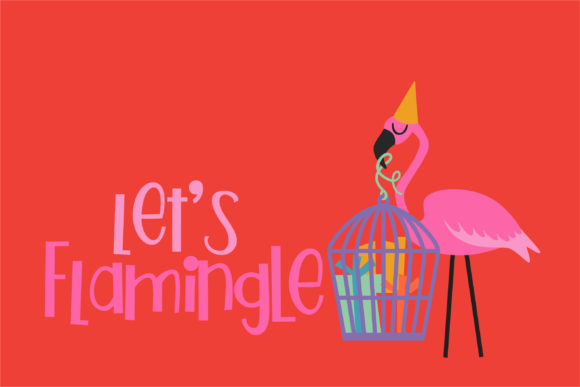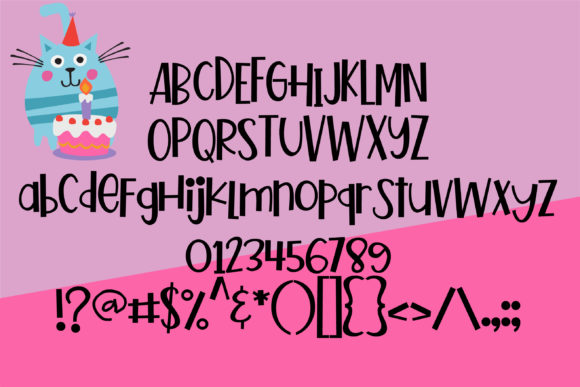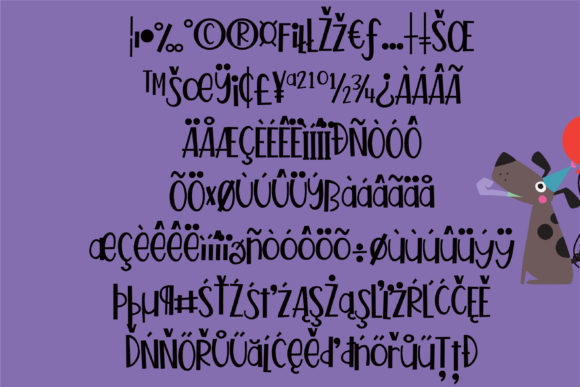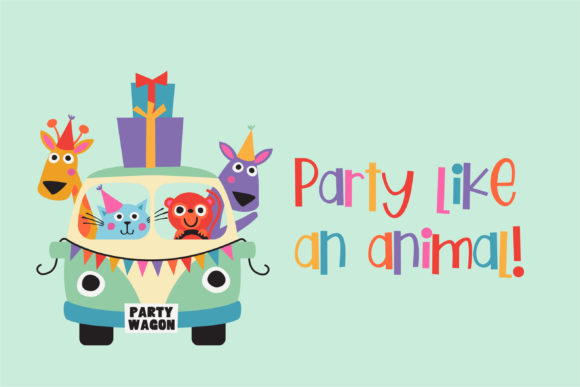
The Joy of High Jinks Font: A Whimsical Design Companion
I still remember the design project that led me to discover the High Jinks Font. I was working on a fun children’s book, and my client requested a font that was playful, energetic, and engaging. As I scoured the internet for the perfect font, I stumbled upon High Jinks, and it instantly caught my eye. Its bouncy baseline and whimsical feel were exactly what I needed to bring the story to life.
An Honest Review of High Jinks Font
• ✨ The unique, bouncy baseline that adds a playful touch to any design
• ✅ Easy to read, even at smaller font sizes
• 💃 Highly versatile, suitable for a wide range of design projects, from children’s books to posters and social media graphics
• 🎉 OpenType features, including glyphs and stylistic alternates, offer endless creative possibilities
While High Jinks Font is an excellent choice for many design projects, there are a few things to keep in mind:
• 🤔 Some characters may appear a bit narrow, which can affect the overall flow of text
• ⚠️ Not ideal for body text or lengthy content, as its playful nature may be distracting
The Story Behind High Jinks Font
High Jinks Font was designed with playfulness and creativity in mind. Its creator aimed to craft a font that would bring joy and energy to designs, making it perfect for projects that require a whimsical touch. The font’s bouncy baseline and unique character shapes are a testament to its design inspiration.
Q: What type of projects is High Jinks Font best suited for?
A: High Jinks Font is ideal for projects that require a playful, energetic feel, such as children’s books, posters, social media graphics, and titles.
Q: Does High Jinks Font support OpenType features?
A: Yes, High Jinks Font supports OpenType features, including glyphs, stylistic alternates, and ligatures, offering a range of creative possibilities.
Q: Can I use High Jinks Font for body text?
A: While High Jinks Font is easy to read, its playful nature may make it less suitable for lengthy body text. It’s best used for headings, titles, and short text passages.